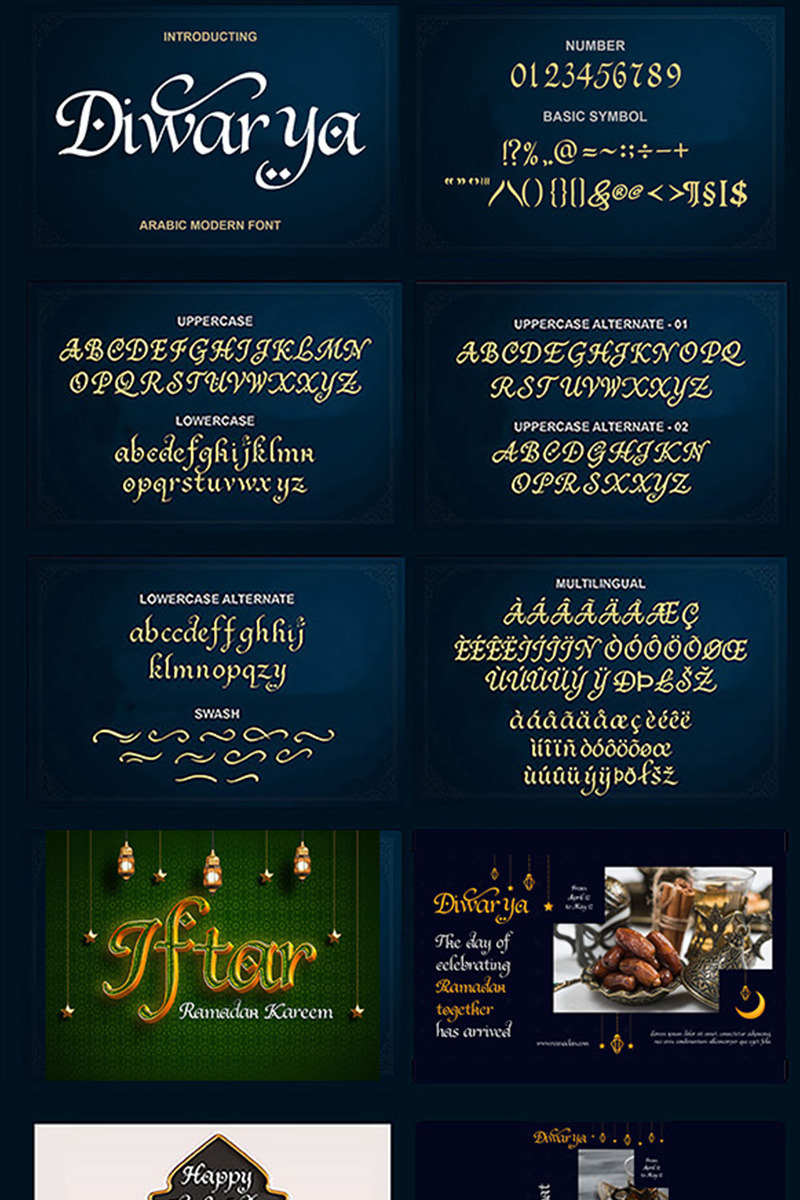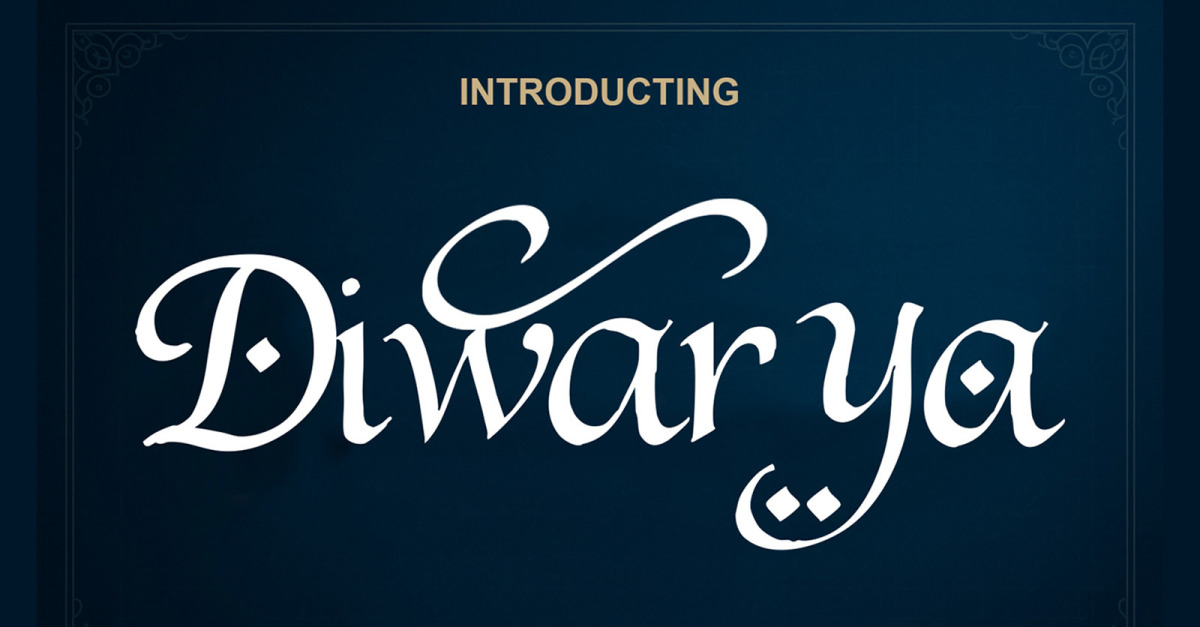
Diwarya Arabic Islamic Font
Diwarya is a bold fusion of Arabic elegance and modern Latin style—perfect for branding that seeks sophistication with cultural depth. This unique typeface turns every word into a statement of beauty.
- - 240 Glyps included Uppercase, Lowercase, Numeral, Punctuation, Multilingual international Language, swash and ornament art